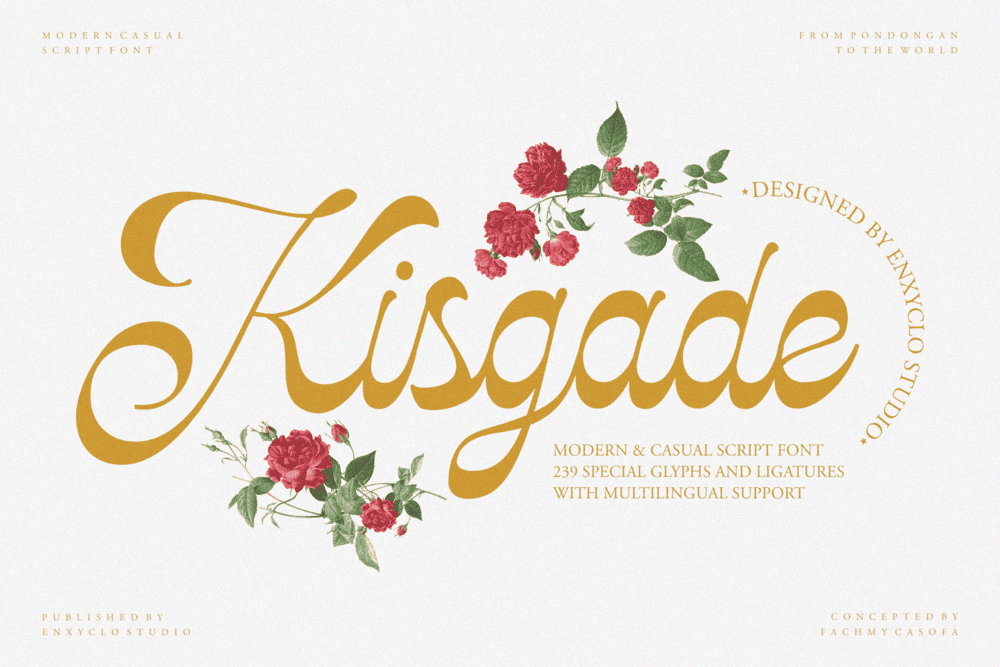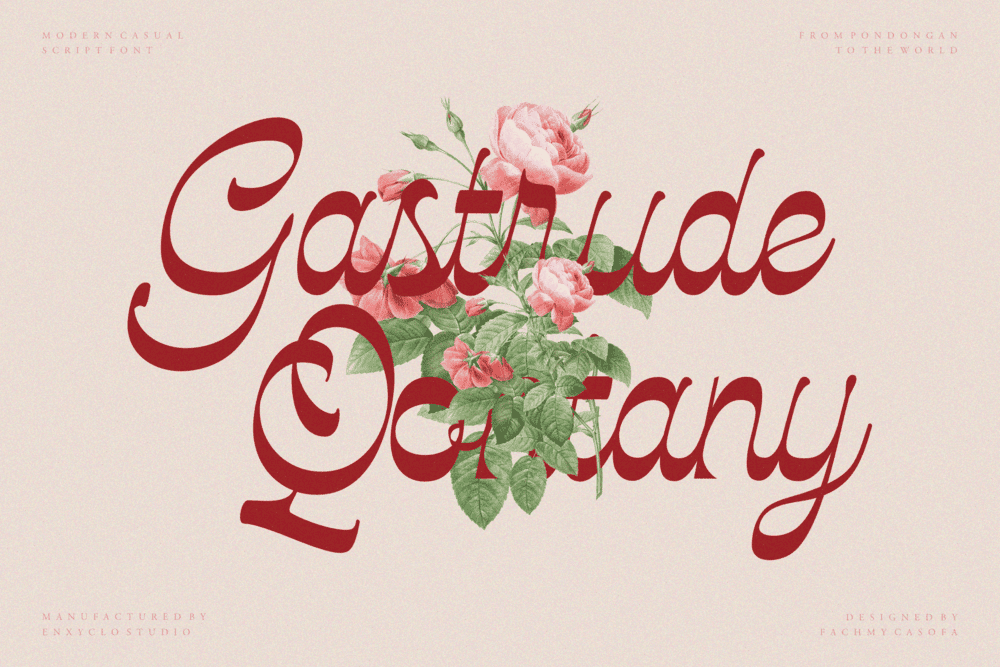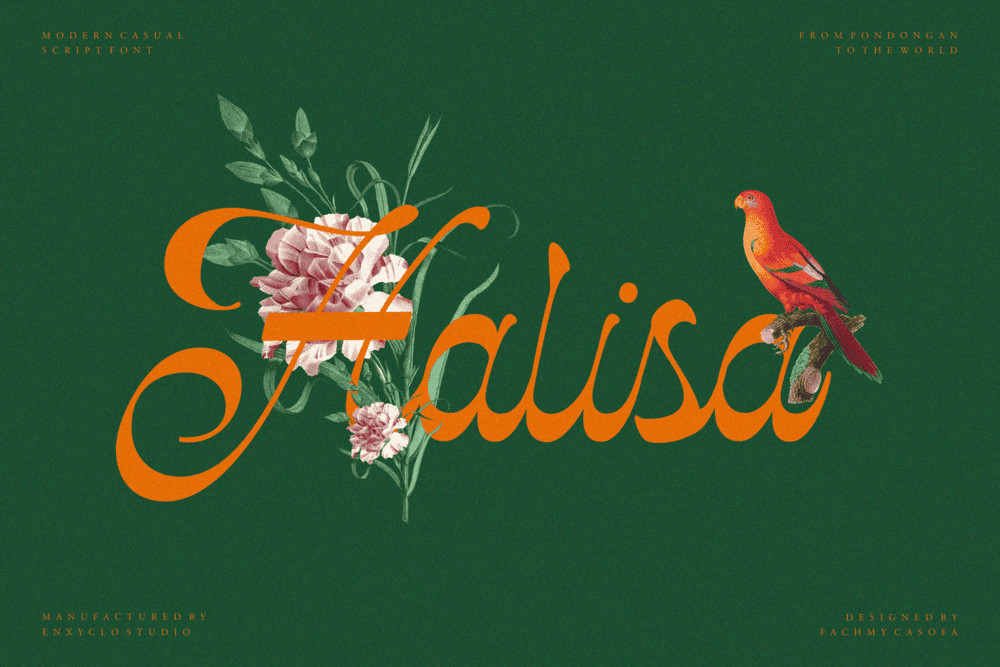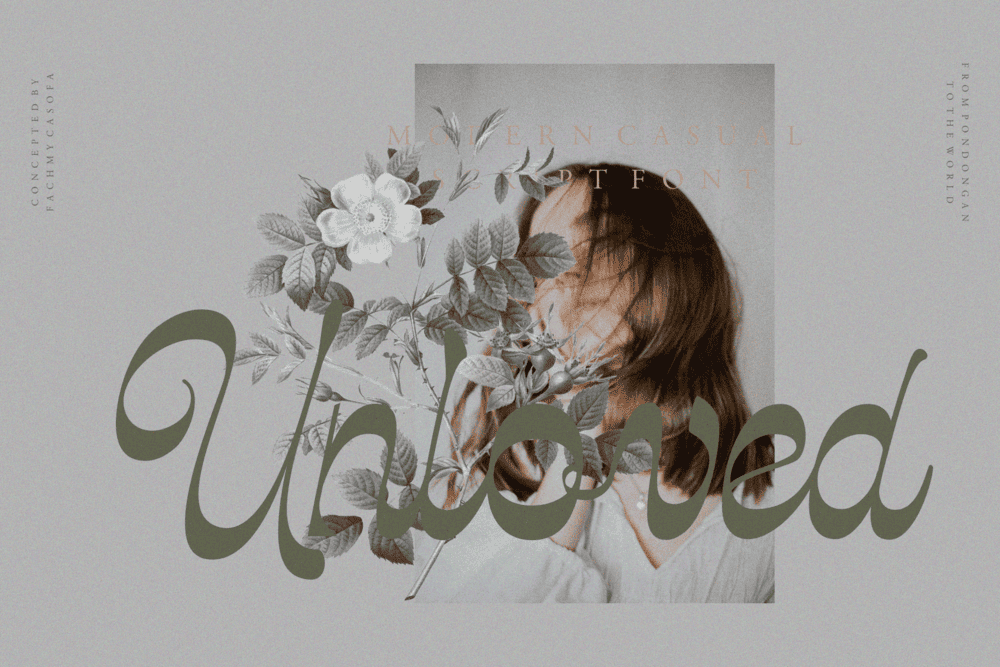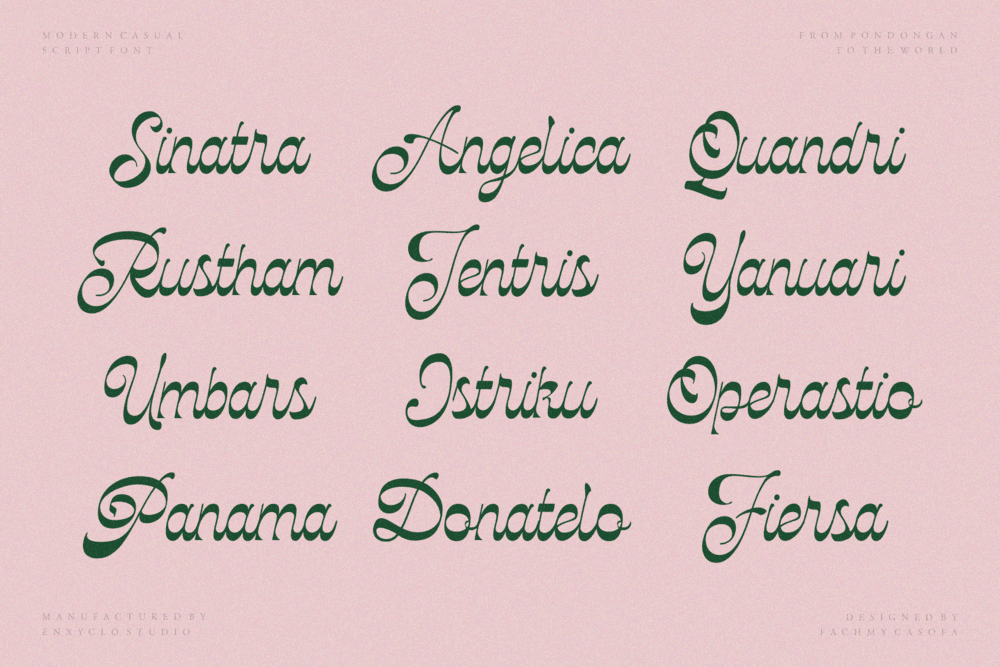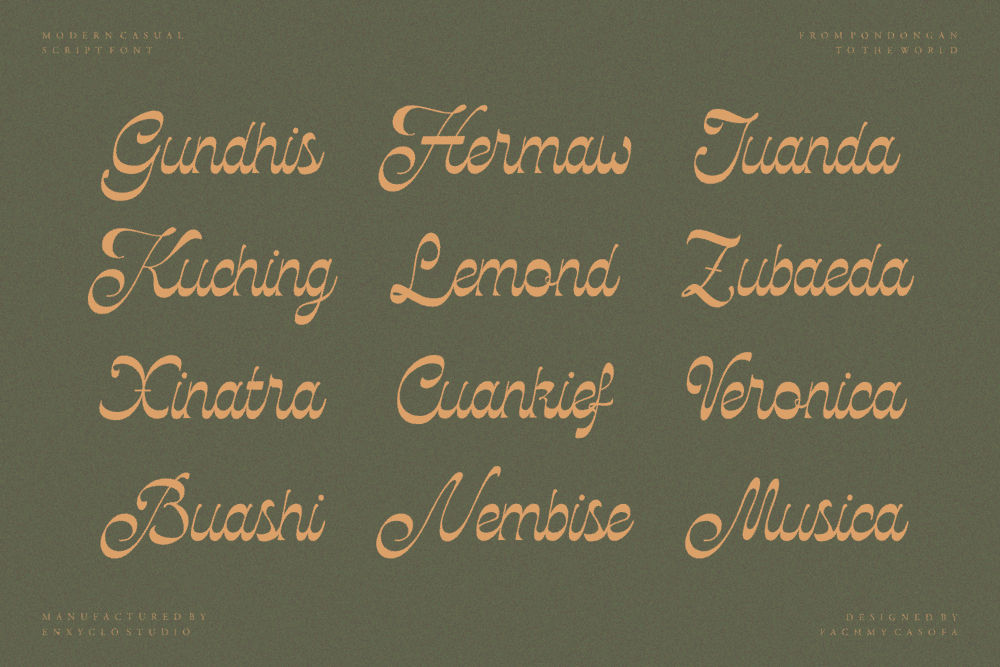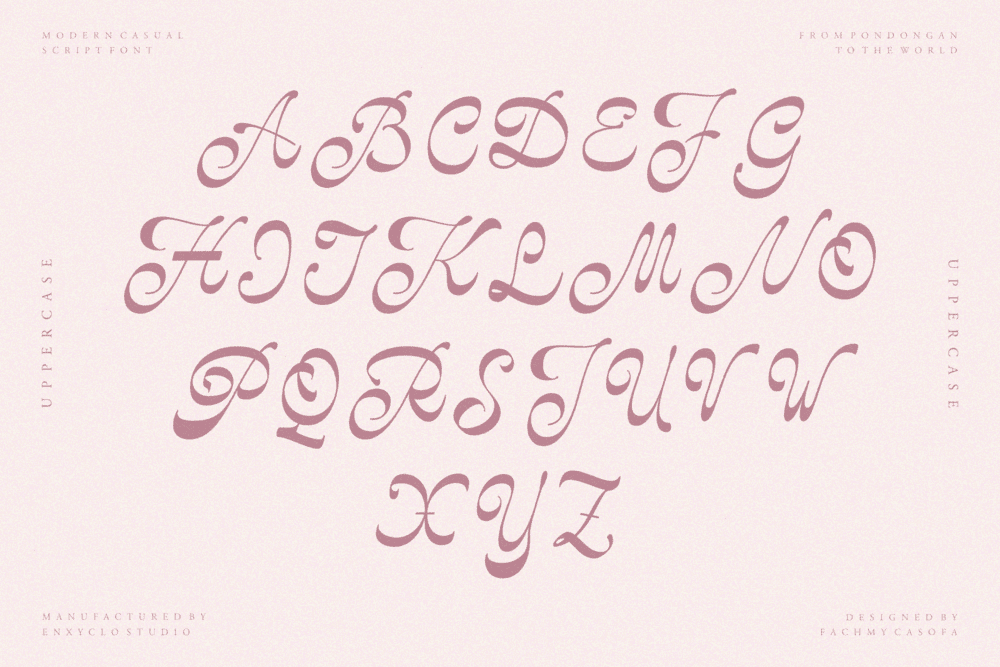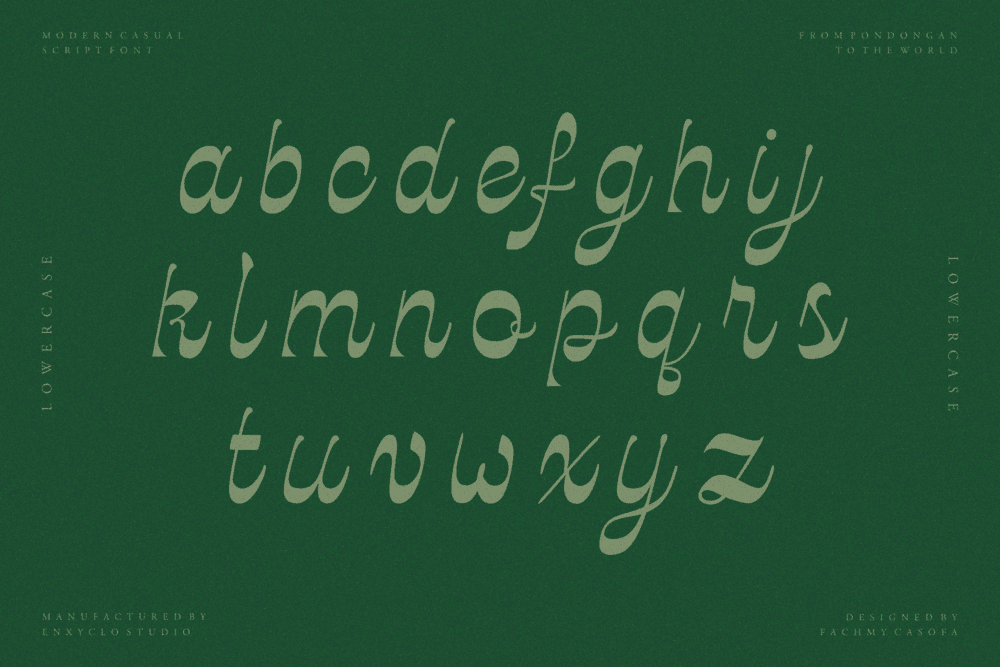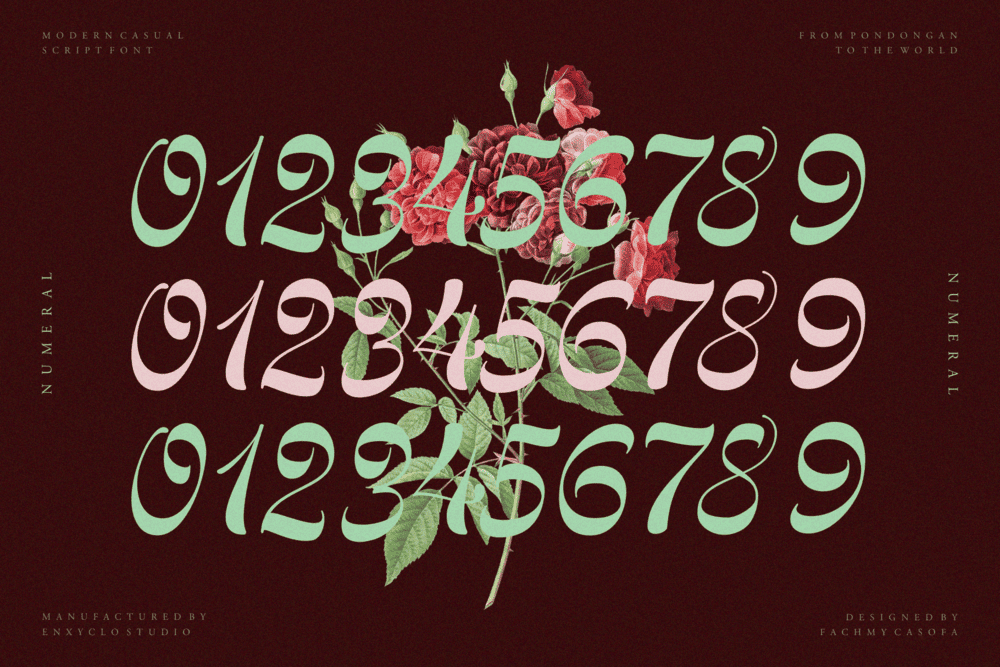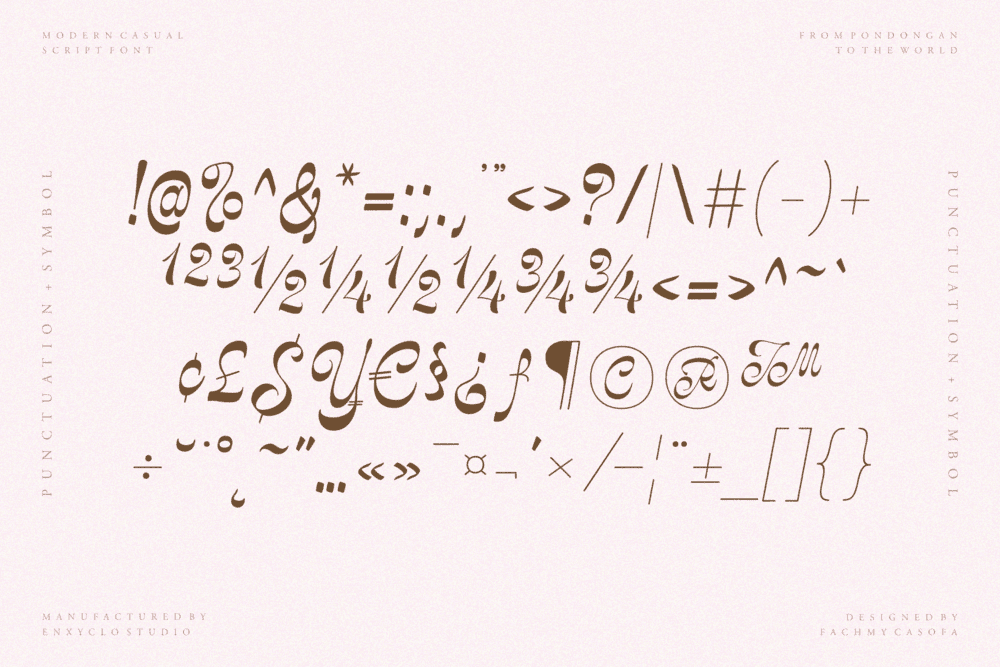
NCL KISGADE is a timeless modern bold script font designed to embody luxury, elegance, and expressive sophistication. With its flowing strokes, confident curves, and refined rhythm, this typeface creates a perfect balance between bold personality and graceful beauty. The result is a lavish and premium script font that instantly elevates any visual identity with a rich and elegant presence. Created for modern brands that seek distinction and style, NCL KISGADE delivers a luxurious aesthetic that feels both fashionable and timeless. Its bold script character gives every logo, brand, and visual design a strong identity while preserving the softness and charm that make script typography feel personal and memorable. Every letter is crafted to express refinement, glamour, and artistic elegance.
Inspired by the world of fashion, beauty, cosmetic, skincare, and boutique branding, NCL KISGADE transforms ordinary typography into a sophisticated visual experience. Whether applied to premium packaging, stylish editorial layouts, or high-end branding projects, the font creates a rich and aesthetic atmosphere that captures attention with effortless beauty. More than just a script font, NCL KISGADE is designed to become a visual signature—perfect for creators and brands that want to communicate luxurious values, premium quality, and timeless elegance through modern typography.
FEATURE
• Uppercase & Lowercase Letters
• Numeral, Punctuation Marks, Currencies & Symbol Set
• Ligature & Multilingual Support
PERFECT FOR
• Luxury Logo & Branding
• Fashion & Boutique Identity
• Beauty, Cosmetic & Skincare Packaging
• Premium Product Labels
• Glamour Advertising Campaigns
• Elegant Editorial & Magazine Design
• Signature Logos & Personal Branding
• Wedding Invitations & Luxury Stationery
• Social Media Branding
• High-End Visual Identity Design